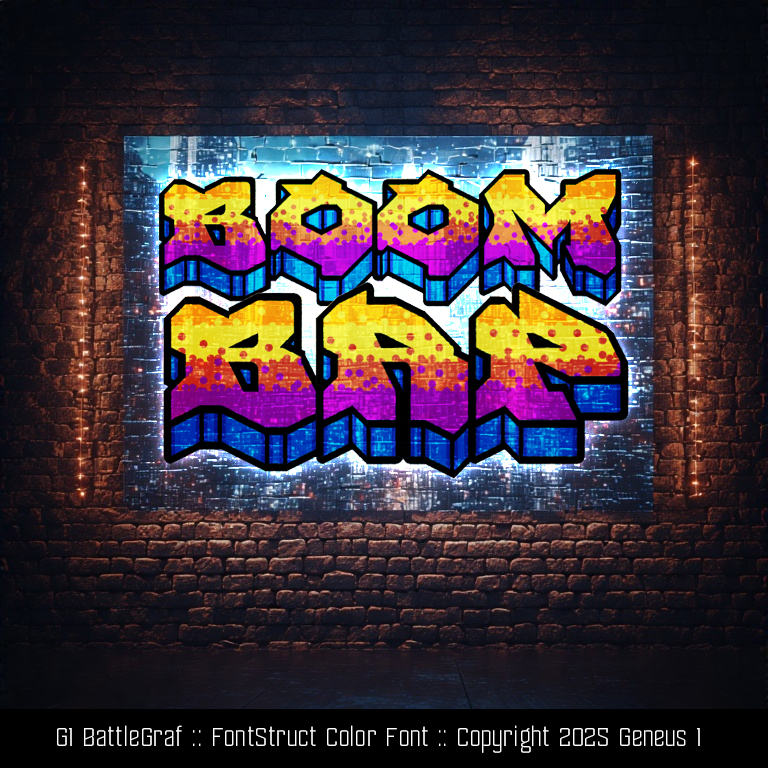
The dotted uppercase is superb! Congrats!
A colour font in graffiti style. Fabulous. 10/10
Absolutely amazing! 10/10
I'm blown away by this. Fabulous work.
This looks pretty nice. Could probably be refined in glyphs to have an actual gradient since COLRv1 supports that.
Wonderful!
Probably the best graffiti font ever.
Nicely constructed! To do all the line work and shading for the 3D extrusion must be labourious.
That was not easy for you to make at all.
bombastic
Nice!
peak